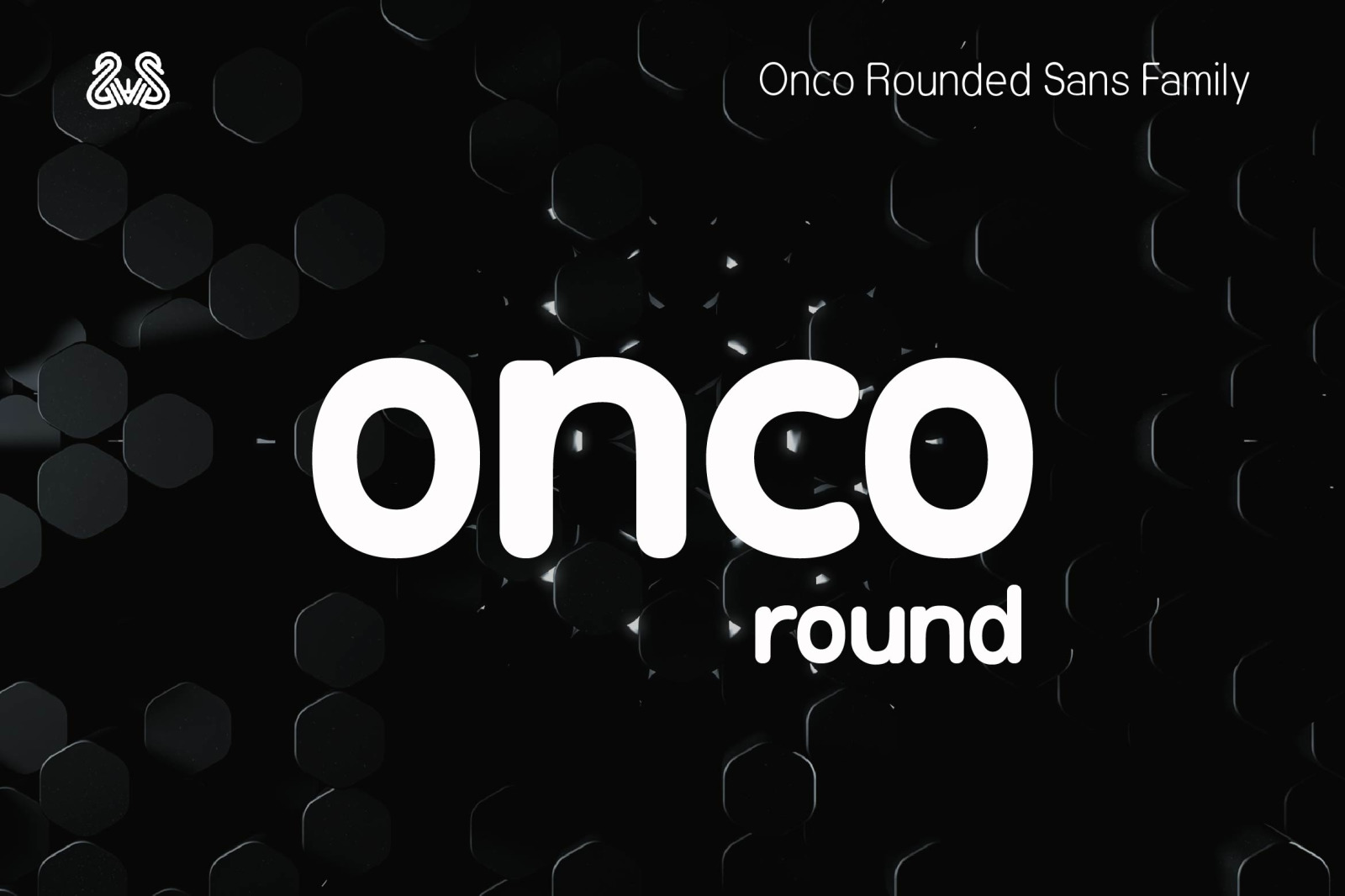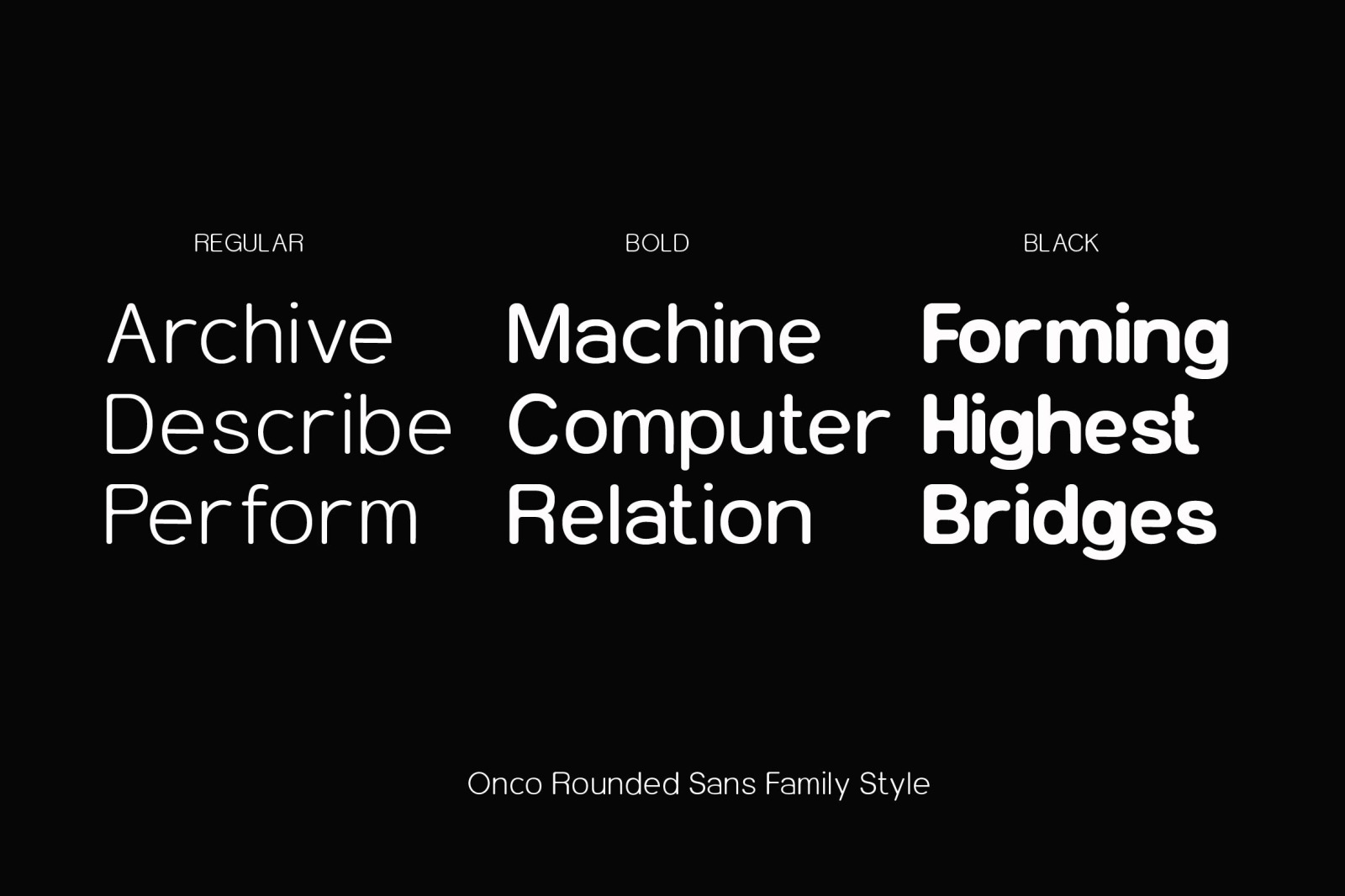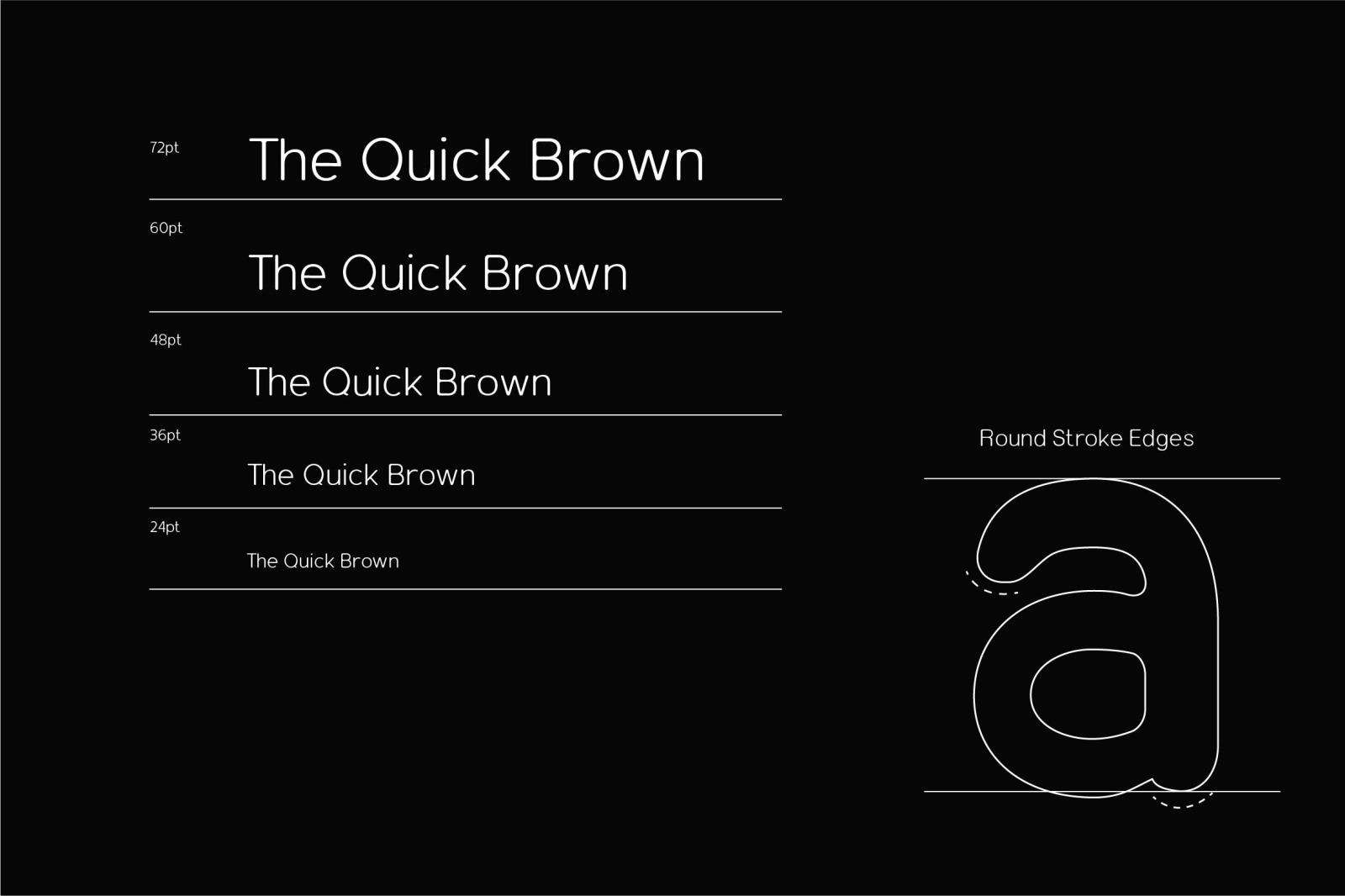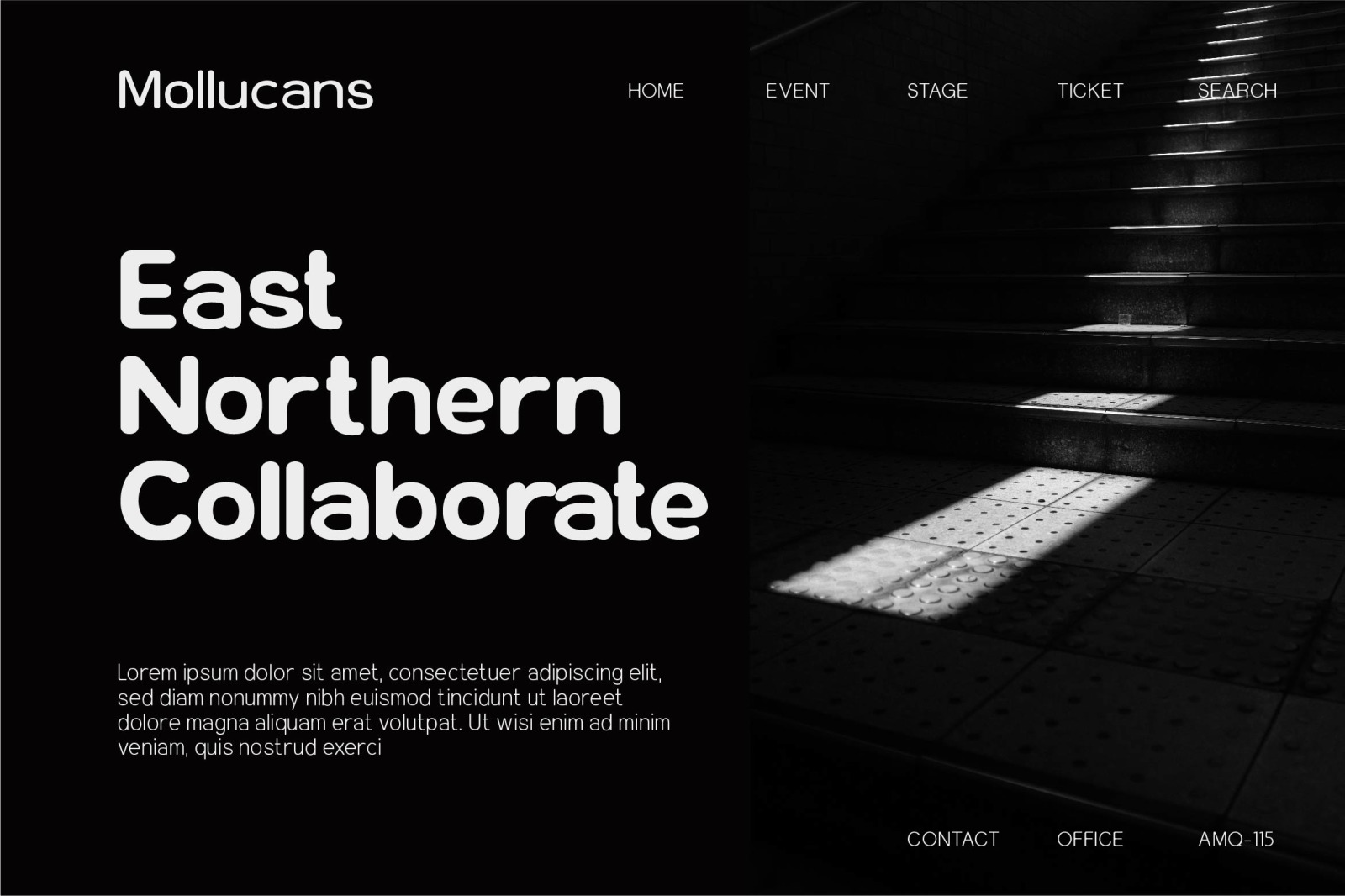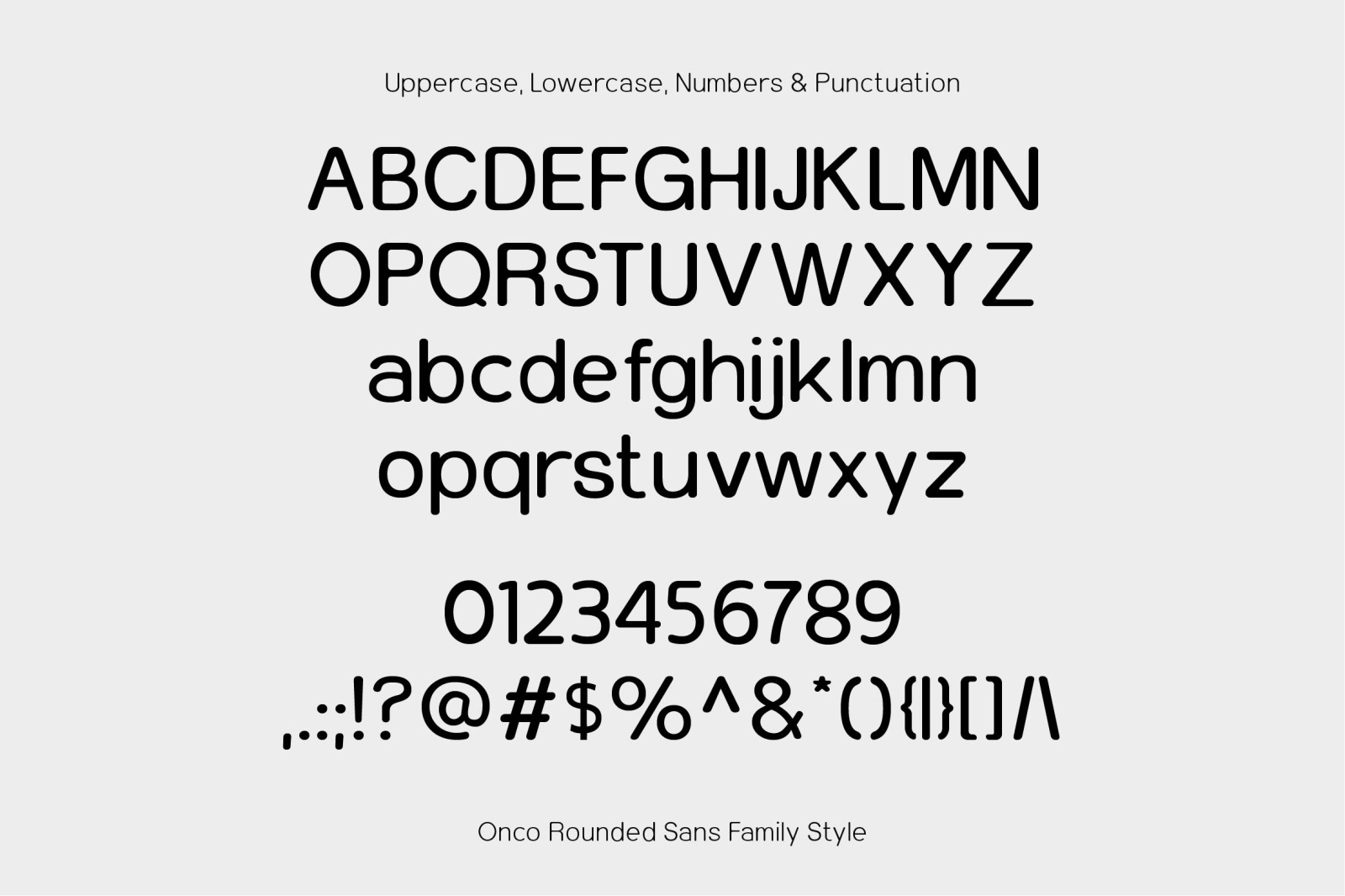
ONCO - ROUNDED SANS FAMILY FONT
Onco Round is a simple and modern sans serif family font. This round shape, minimalist, and clean font can easily become your favorite. It can be used for books, magazines, social media posts, invitations, and so much more! So add this to your creations and take your designs to the next level!